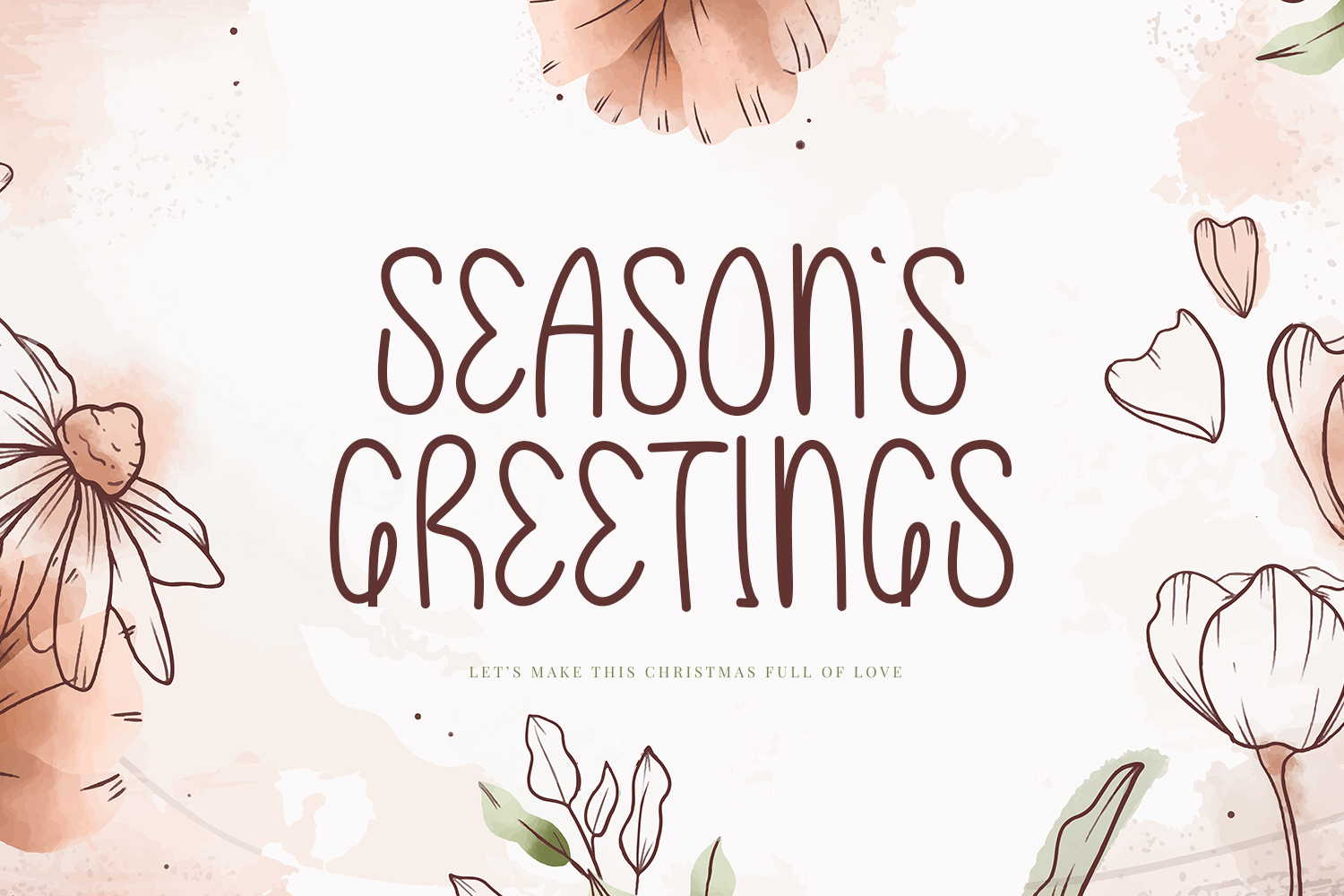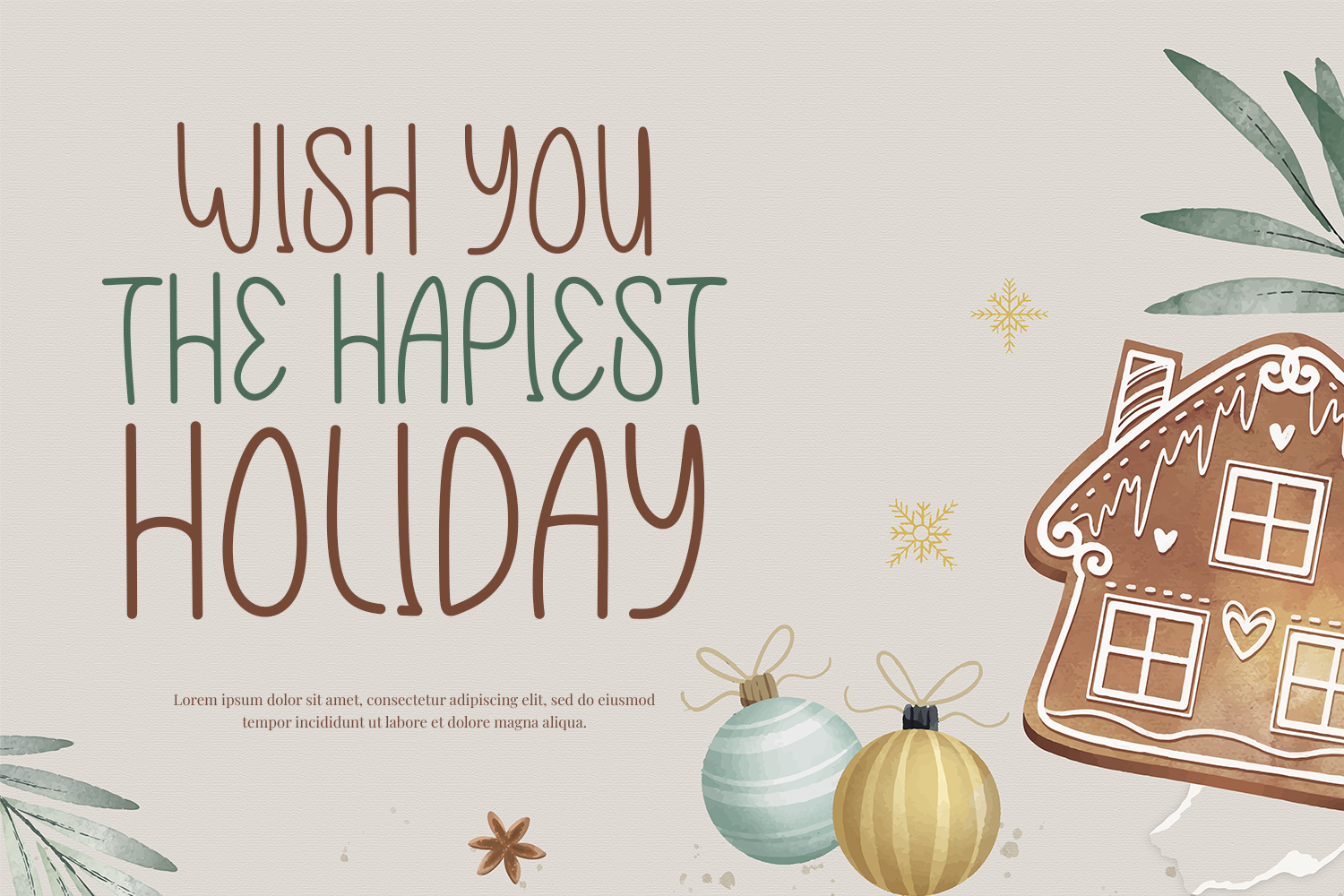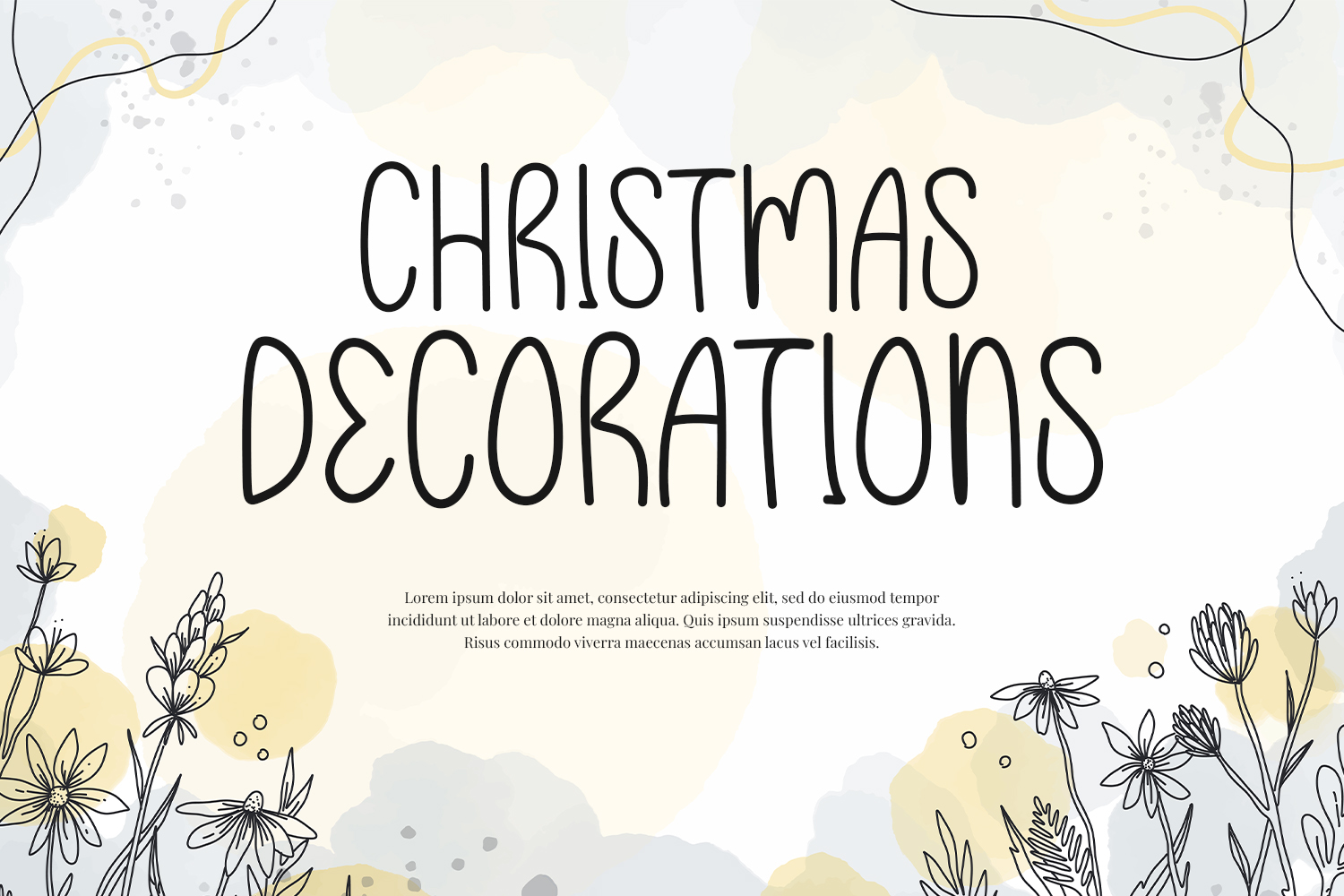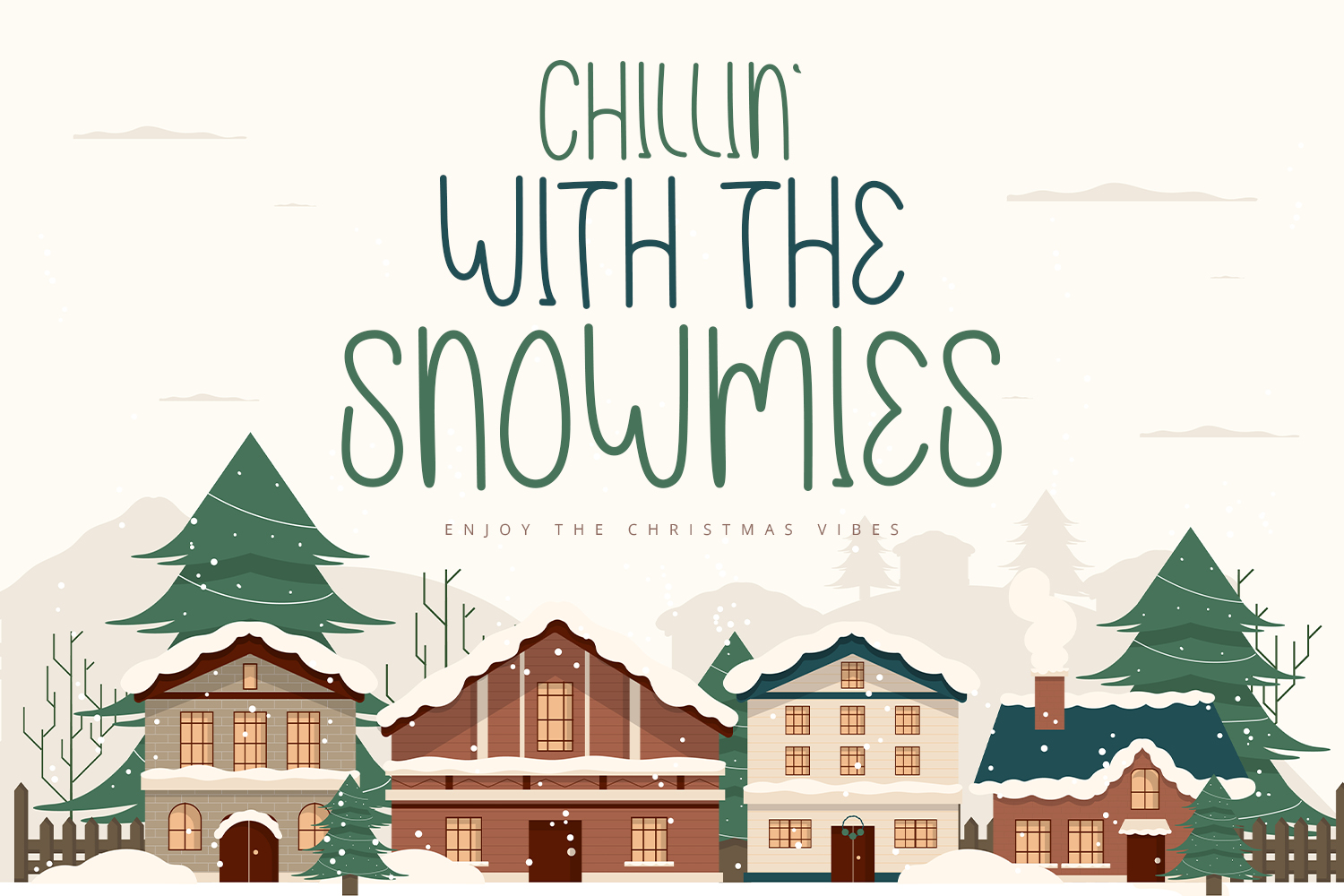
Rudolph Typeface
Rudolph Display Typeface is a playful display font with cute and unique style. It will be perfectly used for Branding, Logo Design, Lettering, Logotype, Clothing, Poster, magazine, packaging, posters, shopping bags, t-shirts, book covers, photography, special events and other design project.